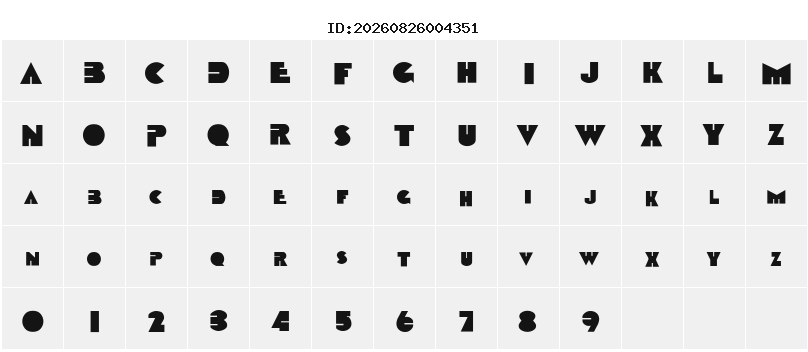
• Font Name: SEASCAPE
• Font ID: SEASCAPE Regular
• Full Font Name: SEASCAPE
• PostScript Name: SEASCAPE
About SEASCAPE.ttf
SEASCAPE.ttf is a modern, elegant sans-serif font designed for ultimate readability and visual harmony. Perfect for branding, headlines, web design, and print materials.